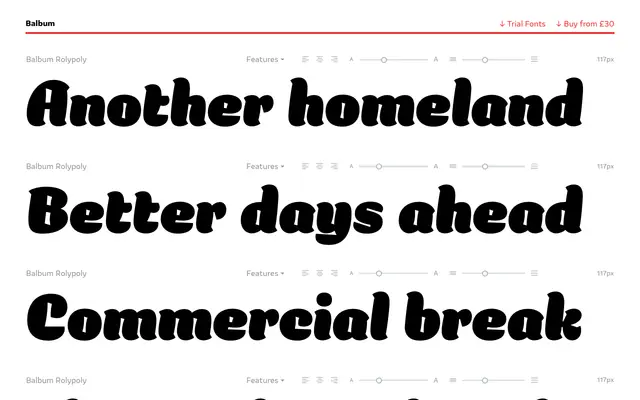
Balbum
A casual brush and marker script by Alessia Mazzarella, released in a single variable style named Rolypoly.
Designed by Alessia Mazzarella and released in October 2020, Balbum is a handwritten script with a brush and marker character, available in a single variable style called Rolypoly. The family covers the Latin script and is supplied in OTF, TTF, WOFF and WOFF2 formats. Its informal, rounded quality suits packaging, editorial and display use where a hand-drawn warmth is wanted.
Described by the foundry as handwritten, brush, and marker in style; the letterforms are casual and informal script, consistent with a brush or marker script subcategory.